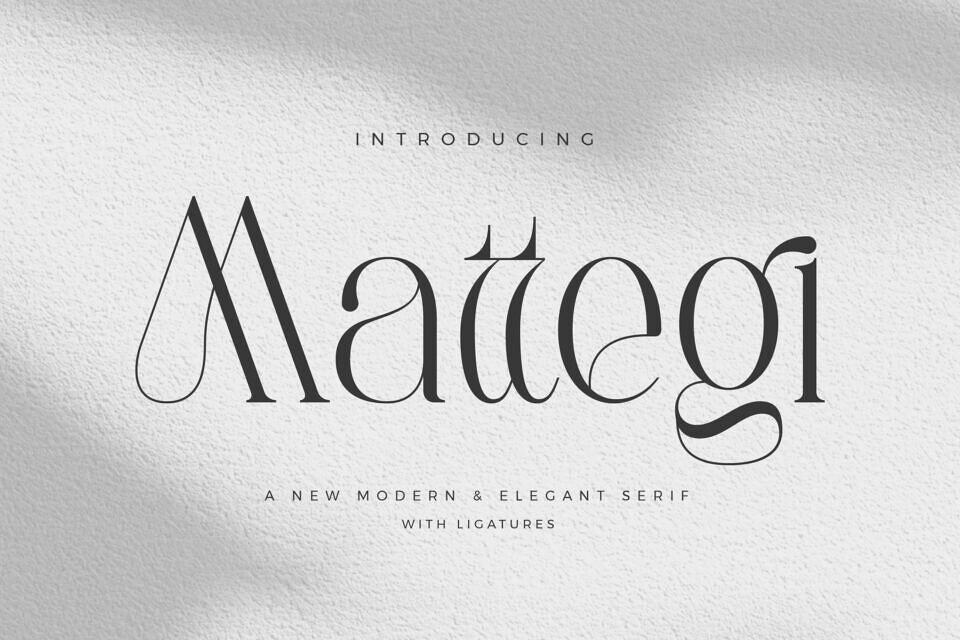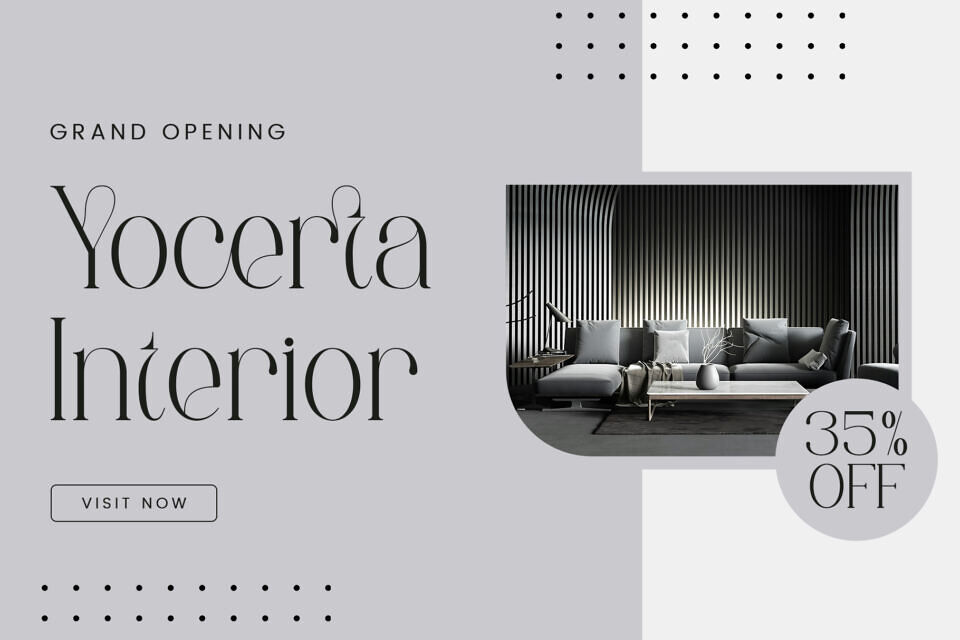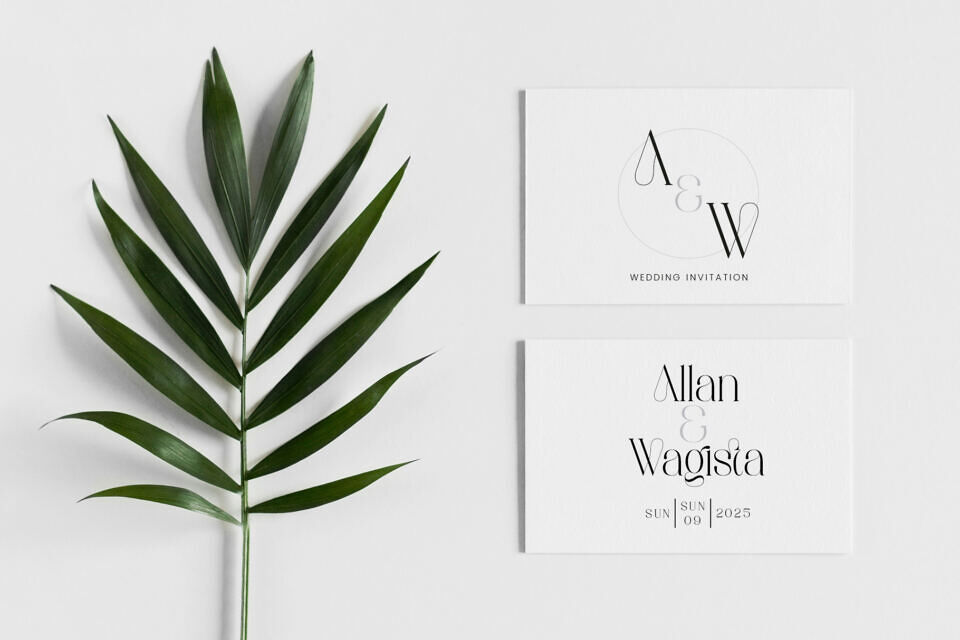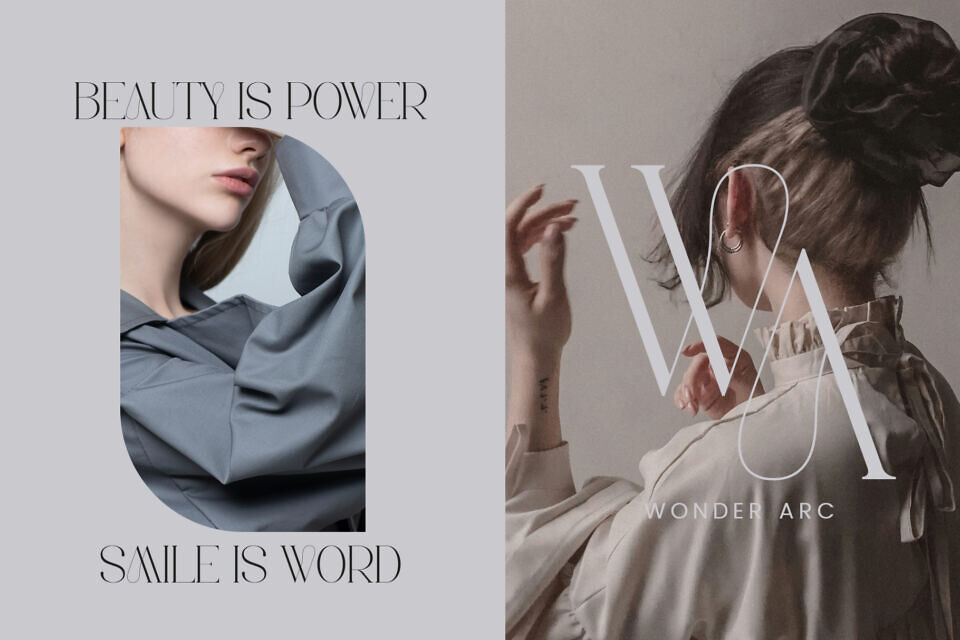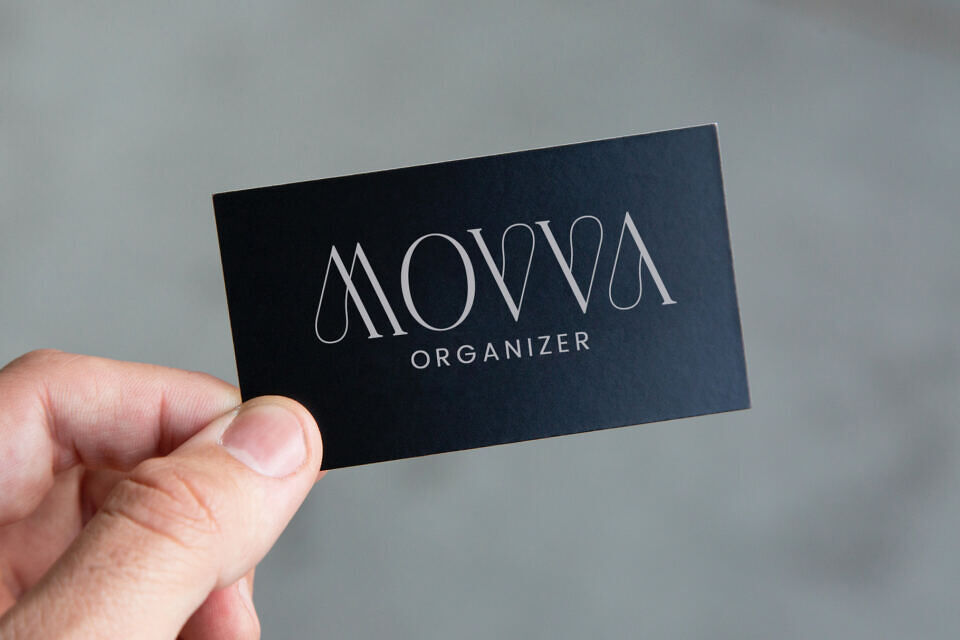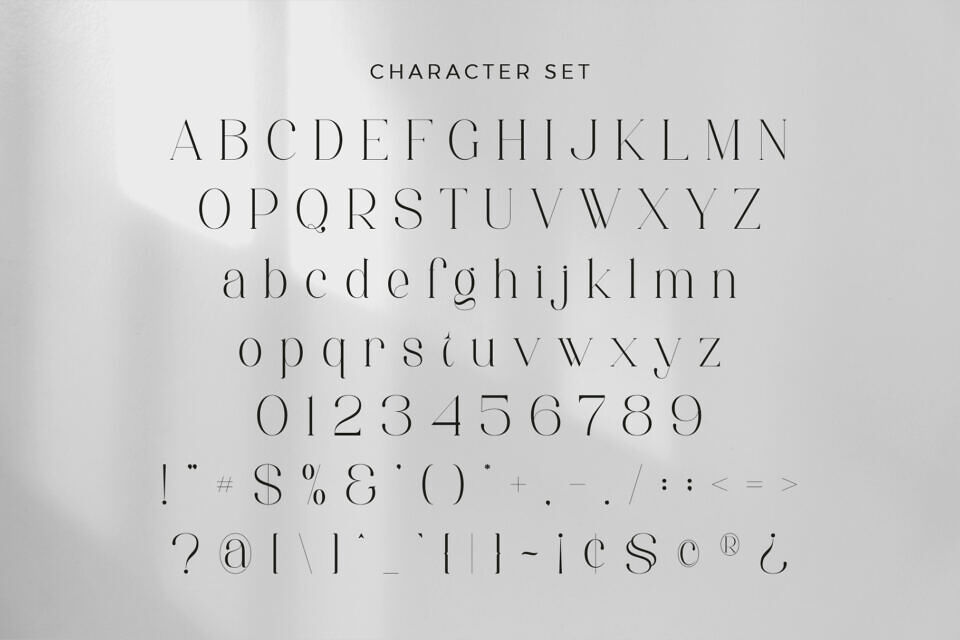
Mattegi is a modern and elegant serif font designed to bring sophistication to your creative projects. Mattegi is perfectly suited for luxury branding, editorial layouts, elegant logos, and premium packaging.
With its clean, timeless lines and versatile letterforms, this font seamlessly bridges classic typography with contemporary style, making it an essential choice for designs that demand a touch of class.